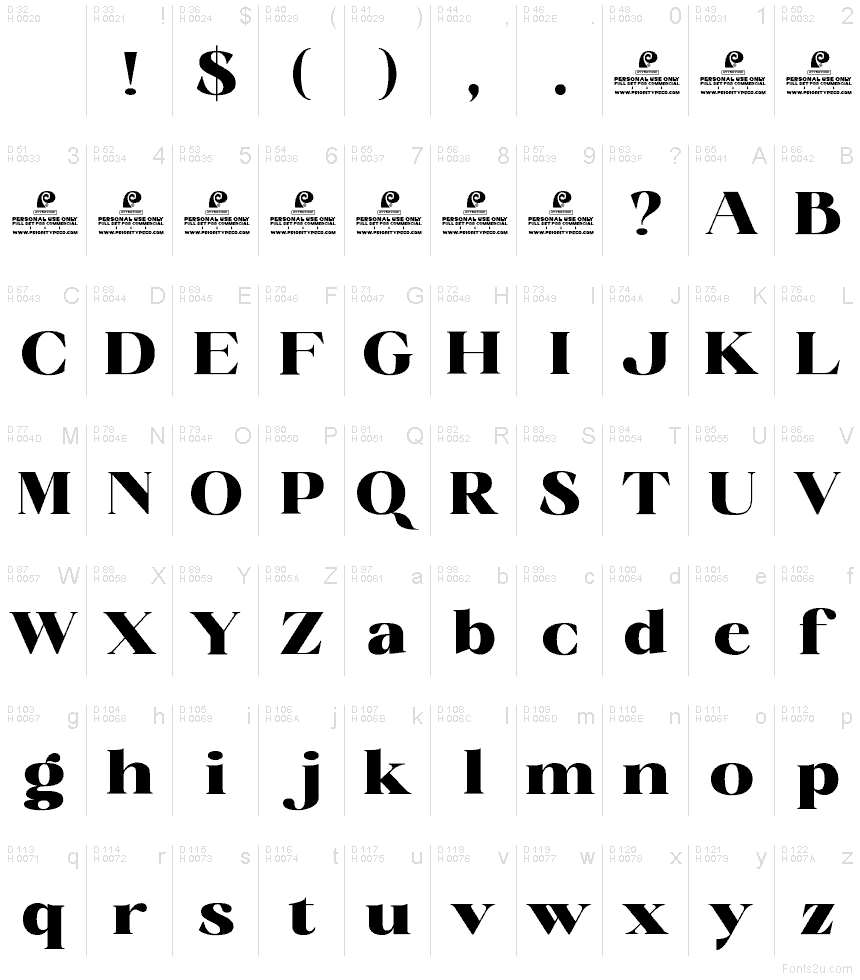
Radiant Charisma DEMO ExtBd
Radiant Charisma ExtBd font by Prioritype Co combines a modern serif influence with expanded bold shapes for an elegant visual. Radiant Charisma is a sophisticated serif typeface with traditional typography vibes and an interesting mix of contrasting elements that promote its overall professional structure.
This free serif font can be used for logos, company branding, badges, apparel design, advertising typography, headlines, magazines, newspapers, and posters. More potential use cases include photography captions/branding like shot watermarks or studio prints.